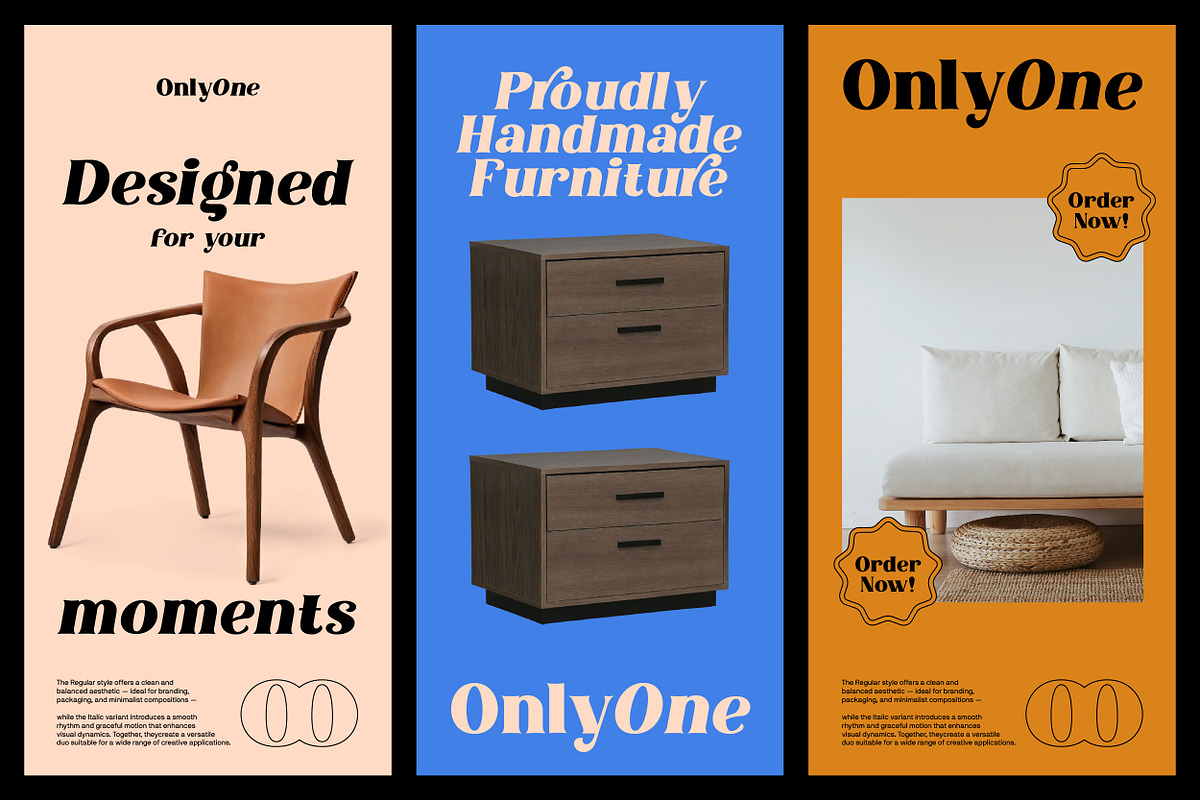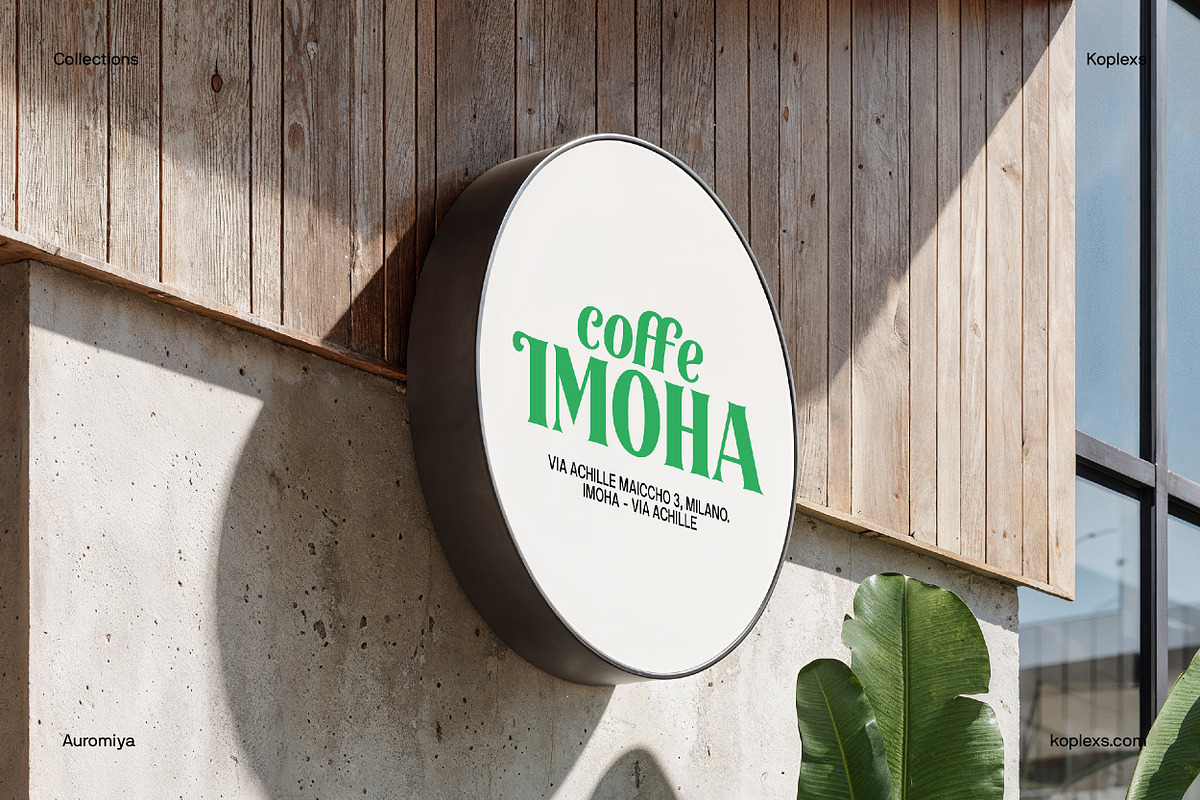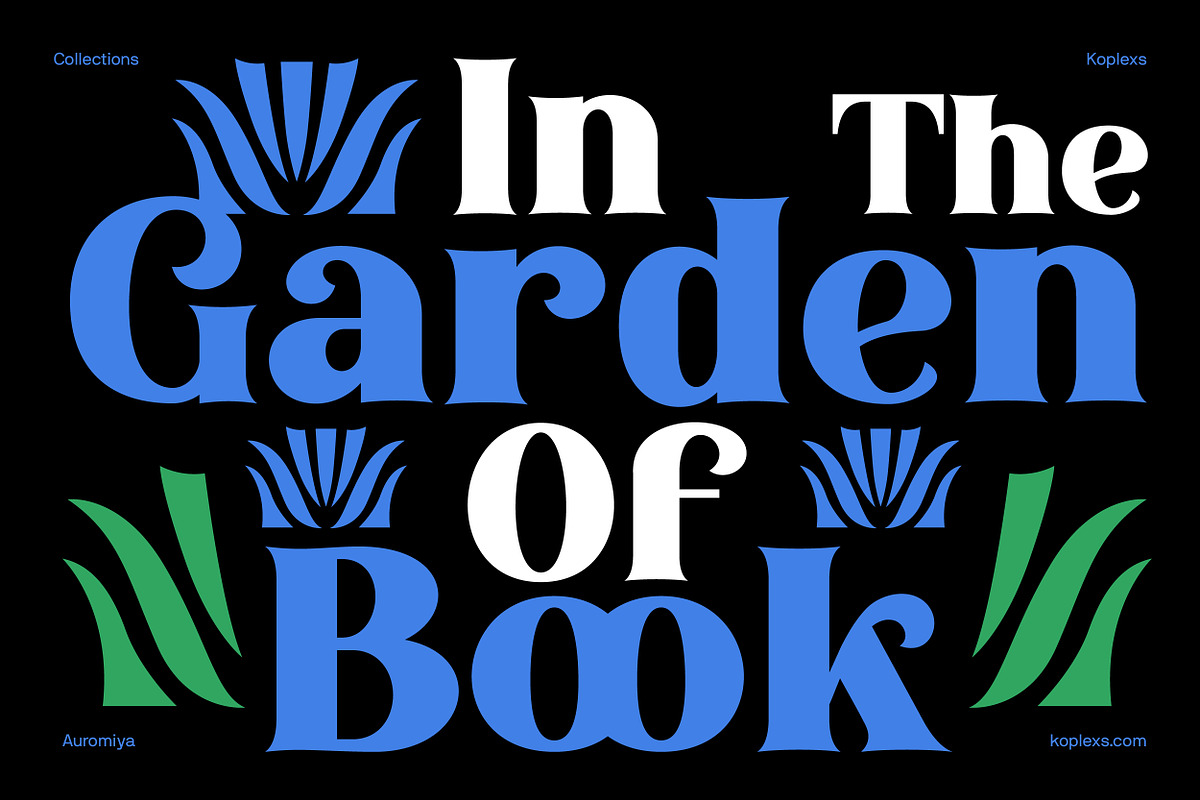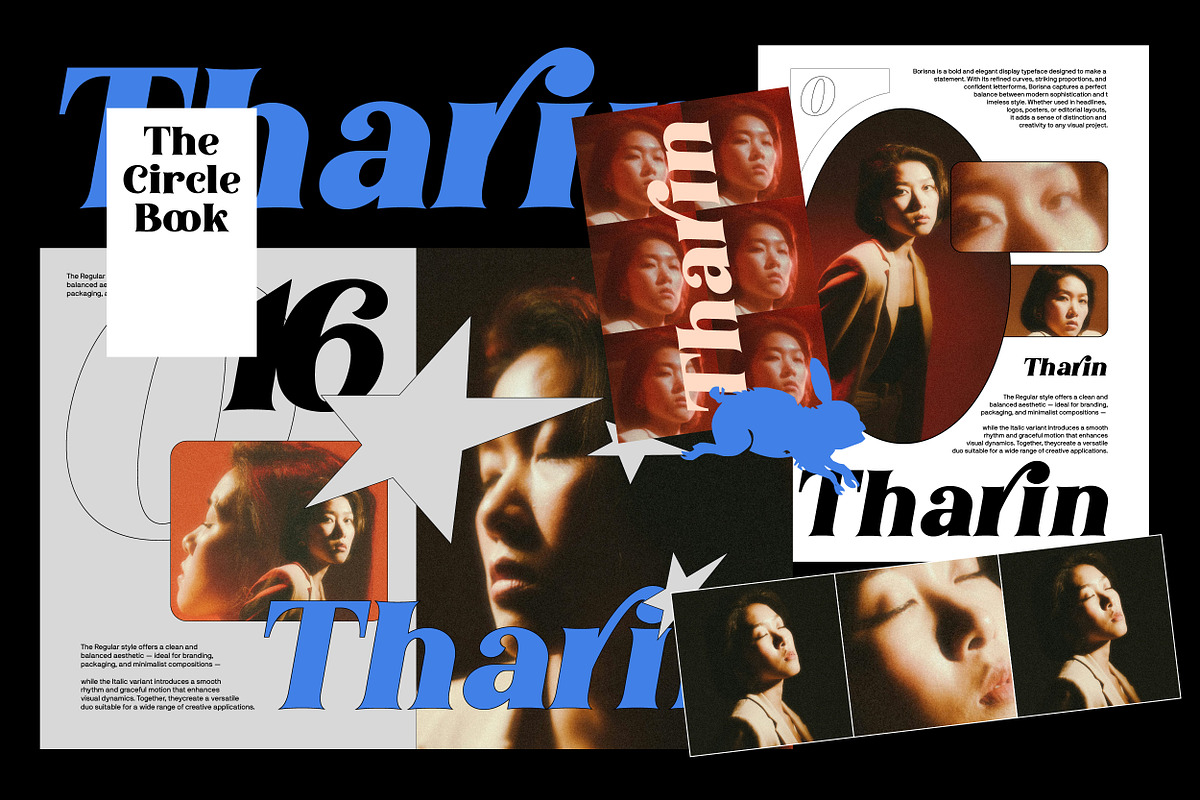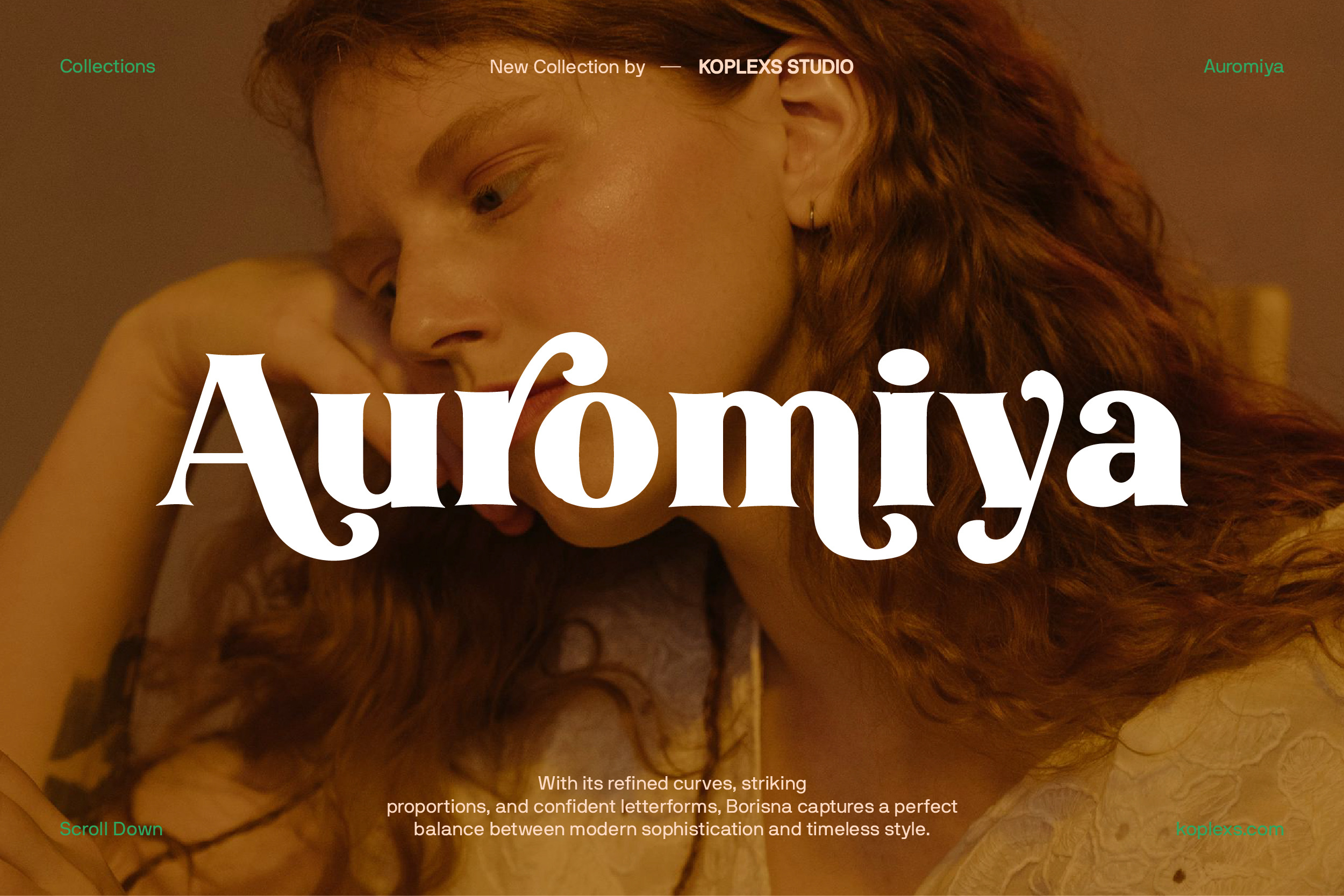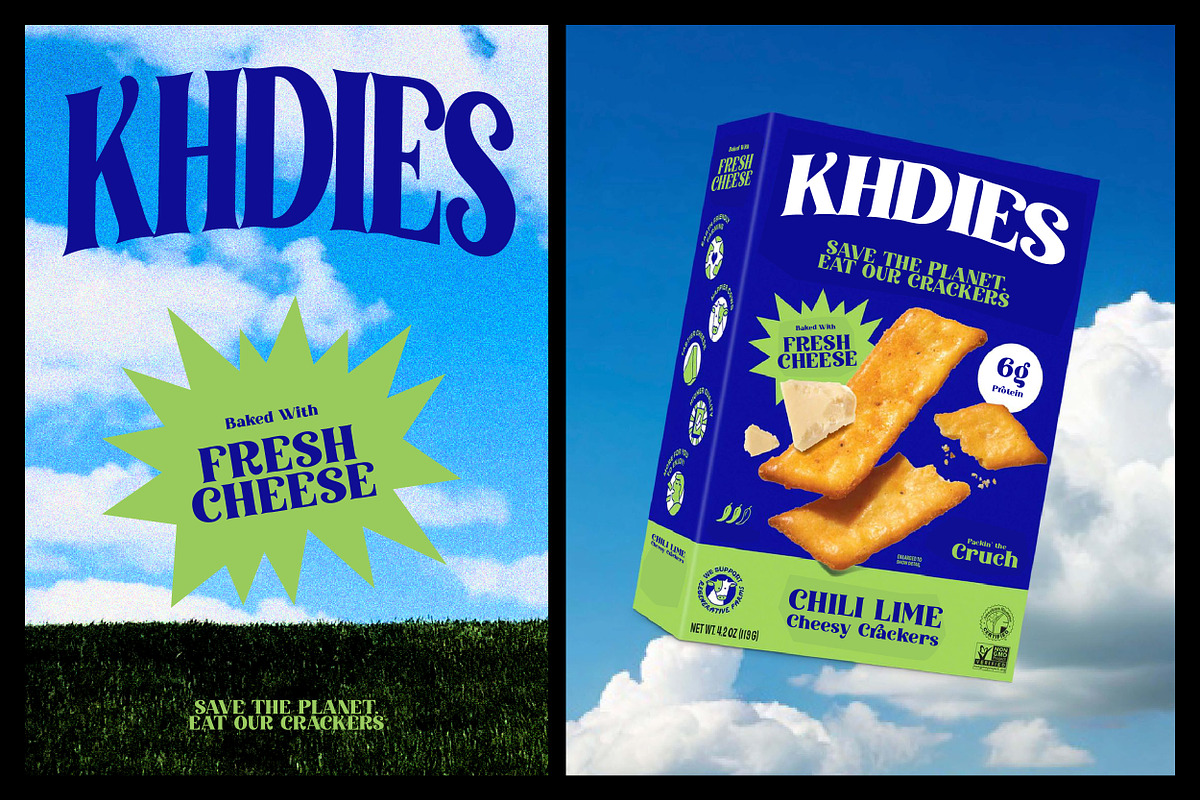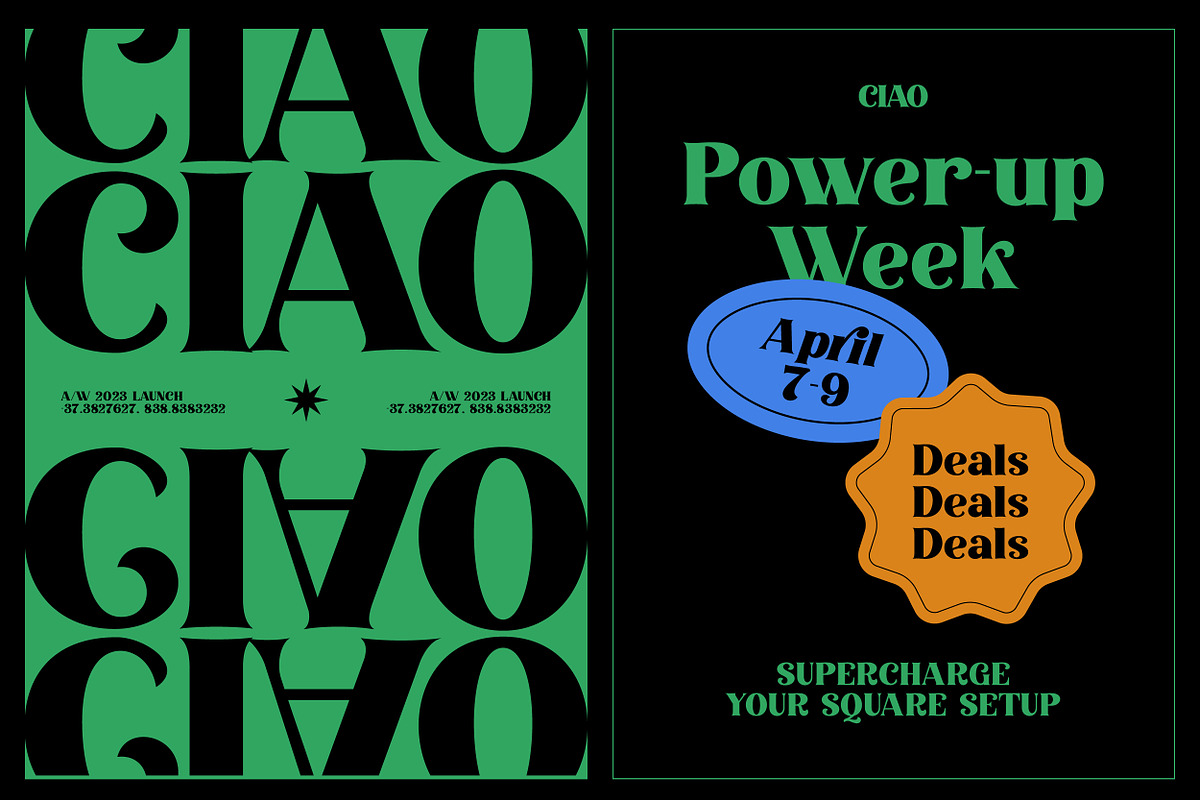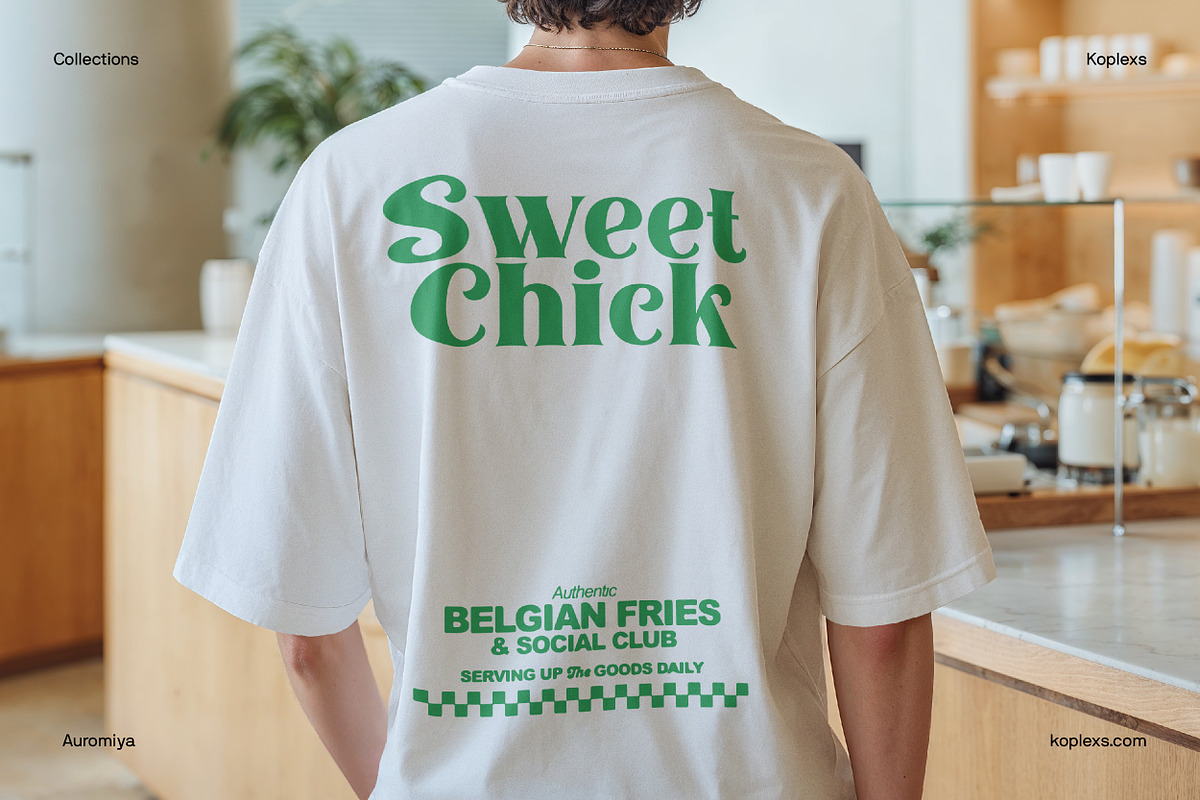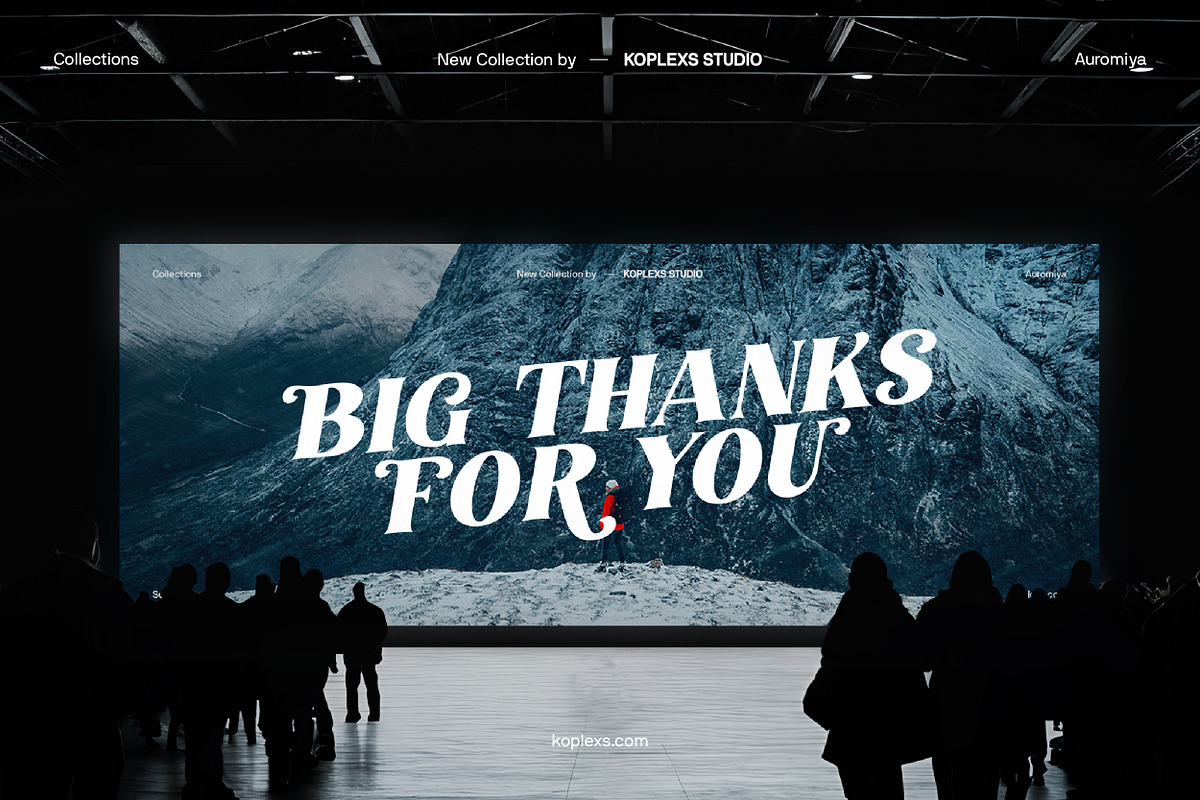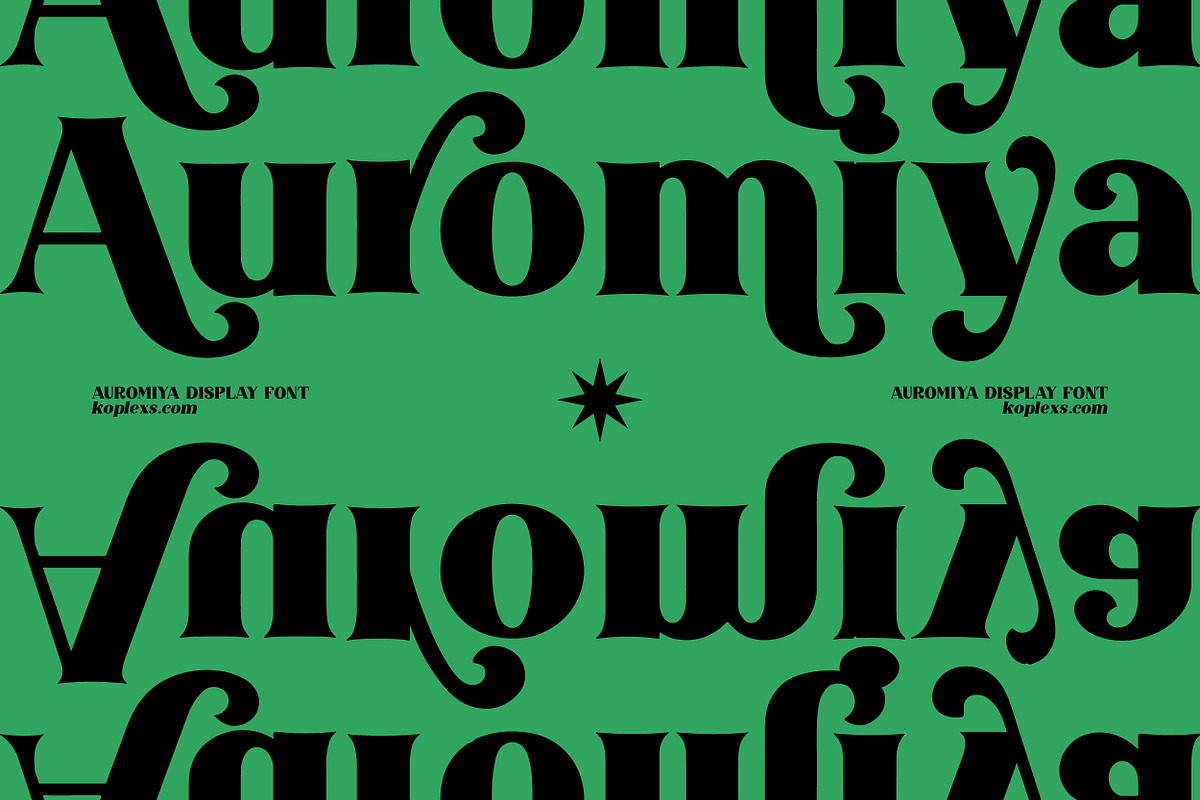
Auromiya - Modern Serif Font
Auromiya - Modern Display Serif Typeface
Auromiya is a bold display serif that brings elegance, character, and personality to every design. Its high contrast strokes, refined curves, and distinctive curled terminals create a beautiful balance between classic sophistication and modern expression.
Made to stand out, Auromiya works especially well in large typography. Each letter has a confident shape and memorable rhythm, helping headlines and brand names become the main focus of your composition. Its stylish appearance can feel luxurious, artistic, playful, or editorial depending on how you use it.
Auromiya Font Perfect For :
Logos and visual identities
Fashion and beauty branding
Editorial layouts and magazine covers
Product and food packaging
Posters and advertising
Book and album covers
Café and restaurant identities
Website headlines and banners
Social media content
Apparel and merchandise
Invitations and promotional materials
Pair Auromiya with a clean sans serif for a balanced modern layout, or use it alone to create striking statement typography. It is a versatile choice for designers who want refined letterforms with an unmistakable personality.